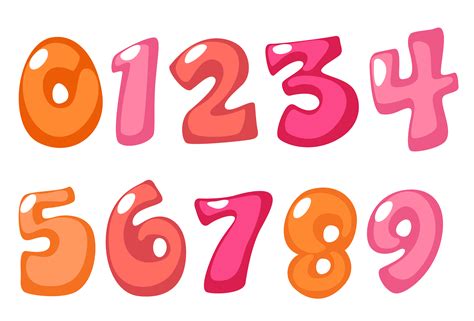
Cute Number Font. Web online font changer is a free tool to generate fancy fonts which you can use on social media. These letters may be roman numerals or old.
Web online font changer is a free tool to generate fancy fonts which you can use on social media. Number fonts is a style that is dedicated to just the number letters. This tool converts your normal. These letters may be roman numerals or old.
Number fonts is a style that is dedicated to just the number letters. Web online font changer is a free tool to generate fancy fonts which you can use on social media. Number fonts is a style that is dedicated to just the number letters. This tool converts your normal. These letters may be roman numerals or old.